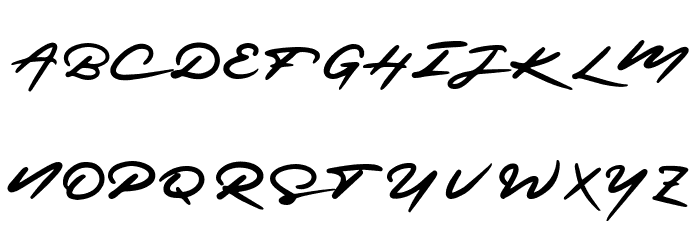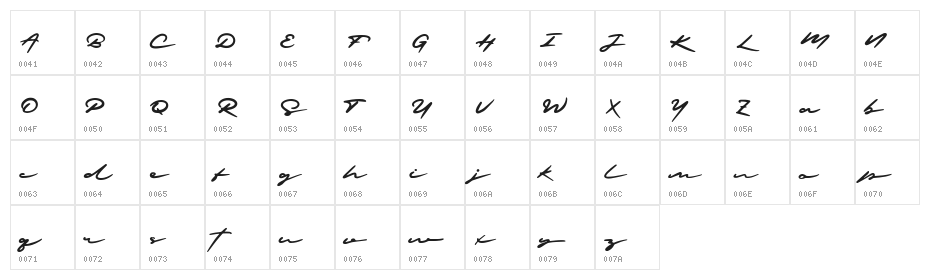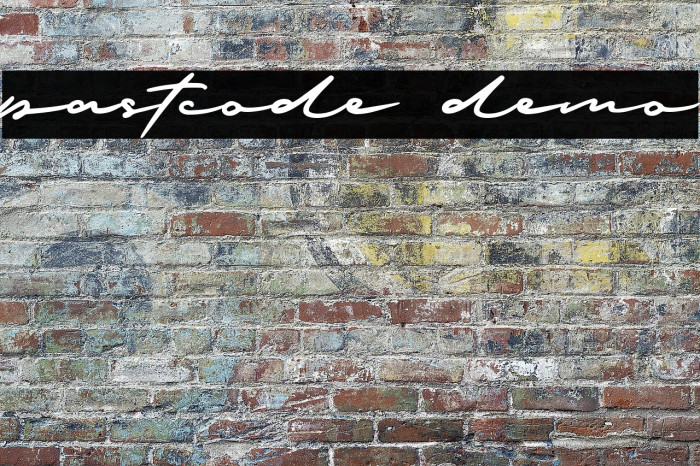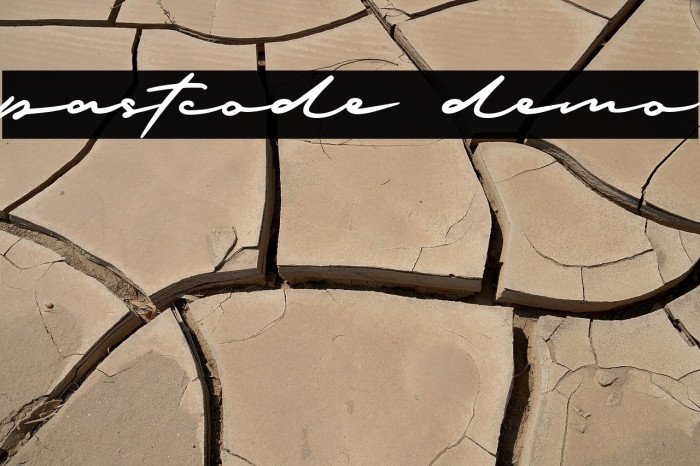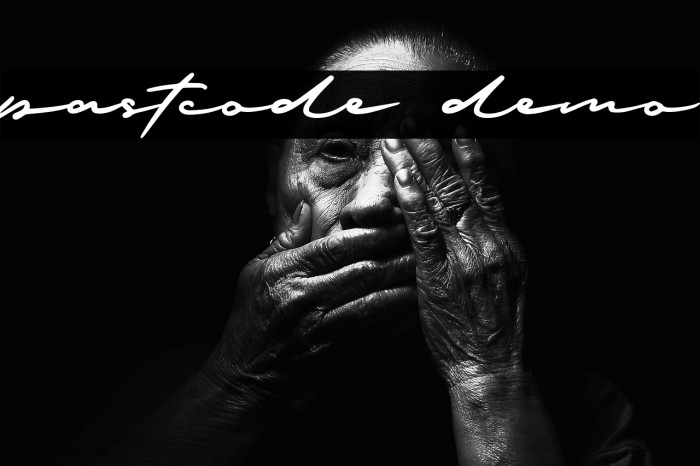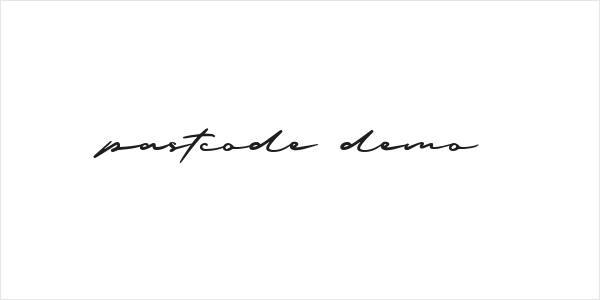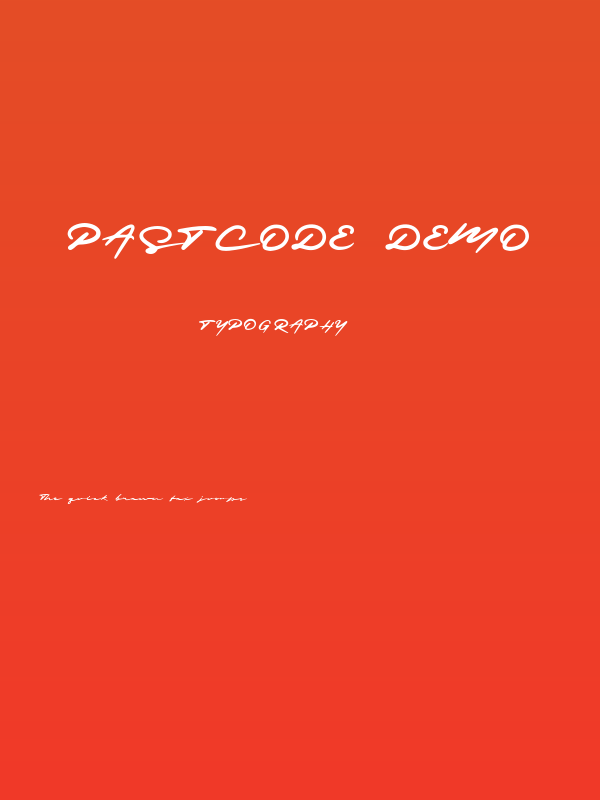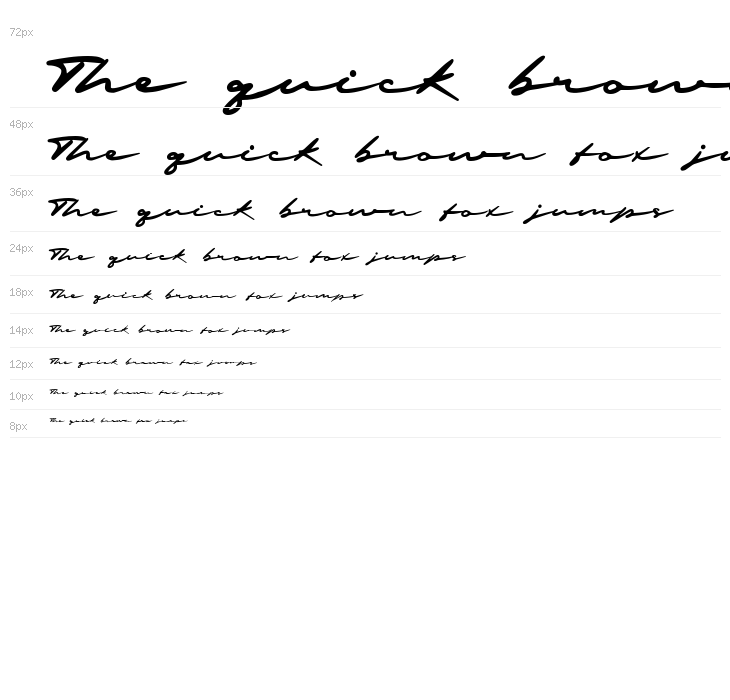
pastcode demo Font
pastcode demo Description
This font features a fluid, cursive style with a modern twist. The letters are connected, creating a seamless flow that mimics natural handwriting. The strokes are smooth and slightly angular, giving it a dynamic and energetic feel. The uppercase letters are bold and prominent, while the lowercase letters maintain a consistent rhythm and elegance. The font's overall appearance is both sophisticated and approachable, making it suitable for a variety of design applications. The characters are well-spaced, ensuring readability while maintaining the script's aesthetic charm.
| Proposed Projects | Ideal for wedding invitations, personal branding, greeting cards, and elegant logos. |